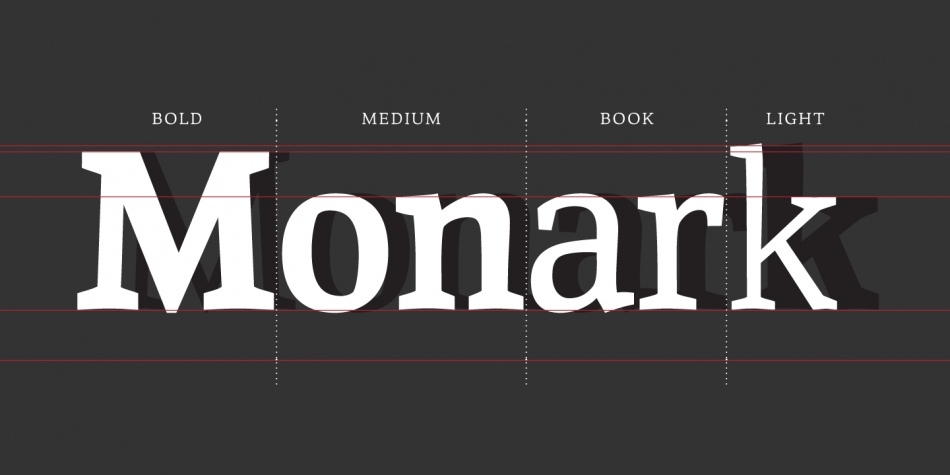
Monark Font
Monark Font is perfect for luxury branding, high-end editorial layouts, premium product packaging, corporate identity materials, and elegant website headers. Its clean yet sophisticated style makes it an excellent choice for projects that require both authority and refinement.
What makes Monark Font exciting is its perfect balance between modern minimalism and classic elegance. The precise geometry of its letterforms conveys professionalism, while subtle stylistic details add a distinctive flair that sets it apart from standard typefaces.
The Monark Font family includes Regular, Medium, Bold, Italic, and Display styles, providing designers with flexibility to create harmonious and consistent typography across different applications. This versatility ensures it can work for both bold headlines and refined body text.
For designers looking to combine elegance, versatility, and a premium feel, Monark Font Free Download is a top-tier choice that will elevate the look and feel of any creative project.